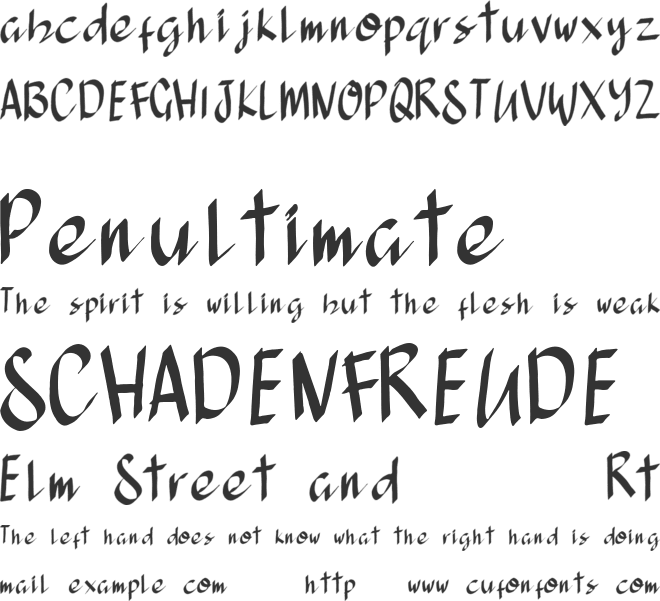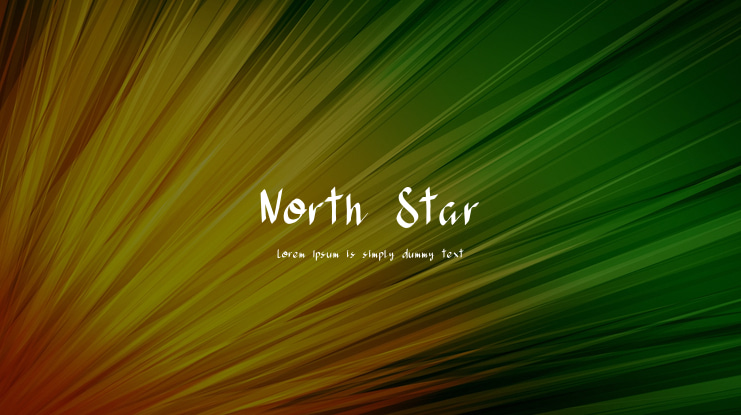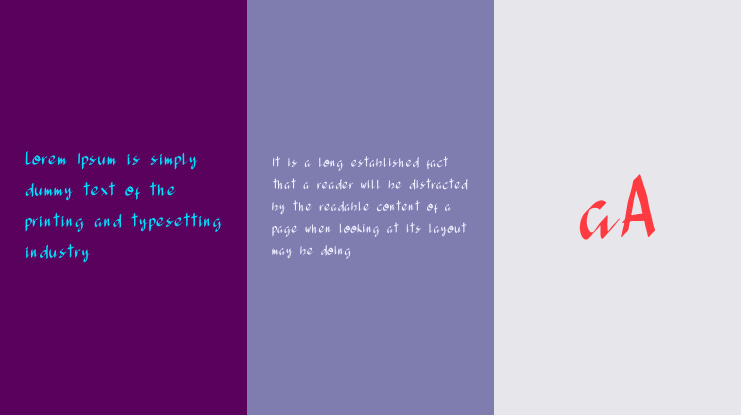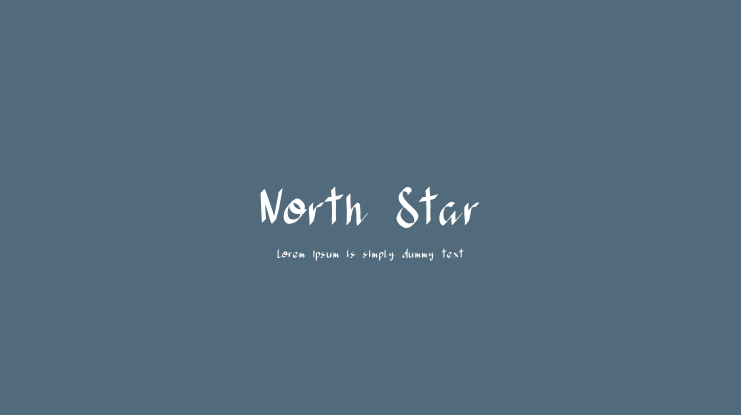
North Star Font
North Star is a cute and incredibly unique display font. Add this beautiful font to each of your creative ideas and notice how it makes them stand out!